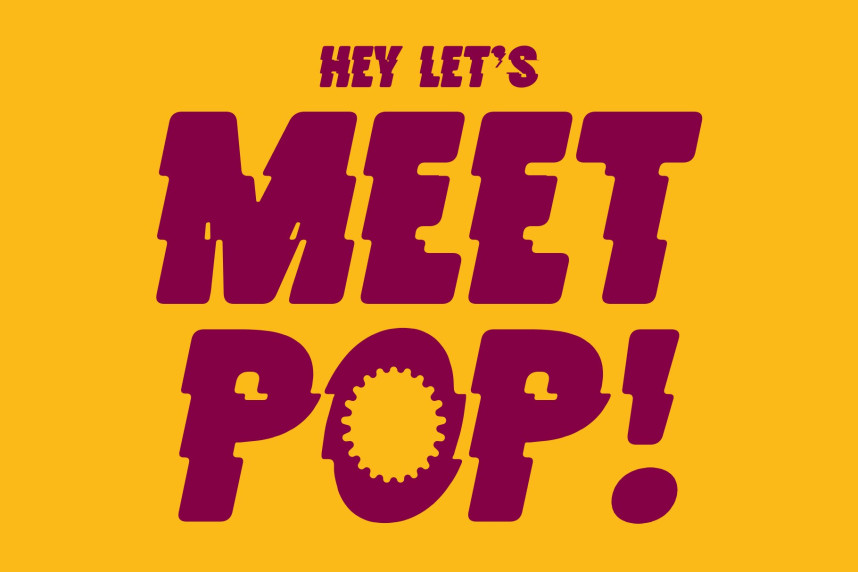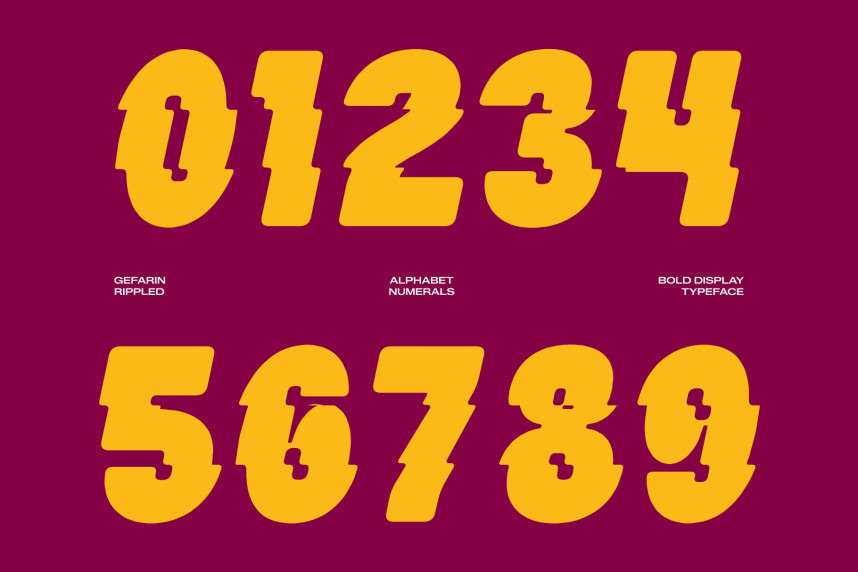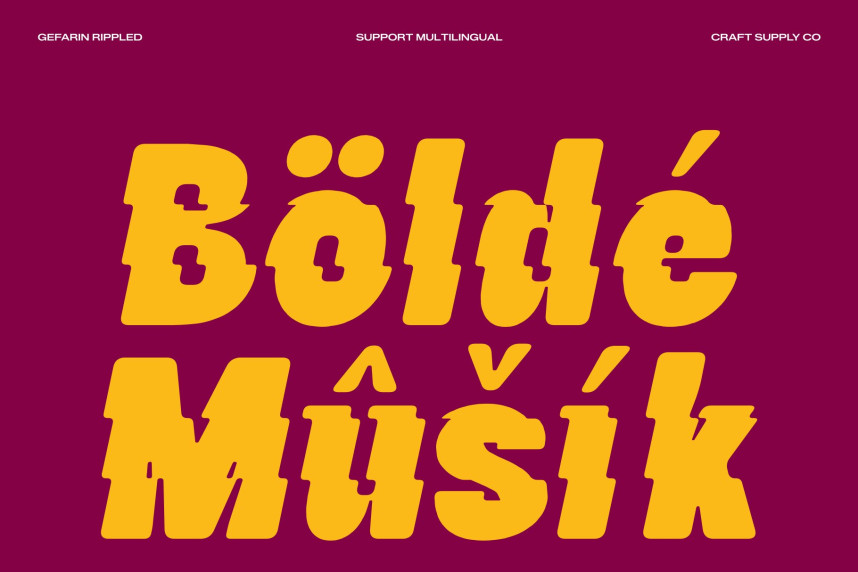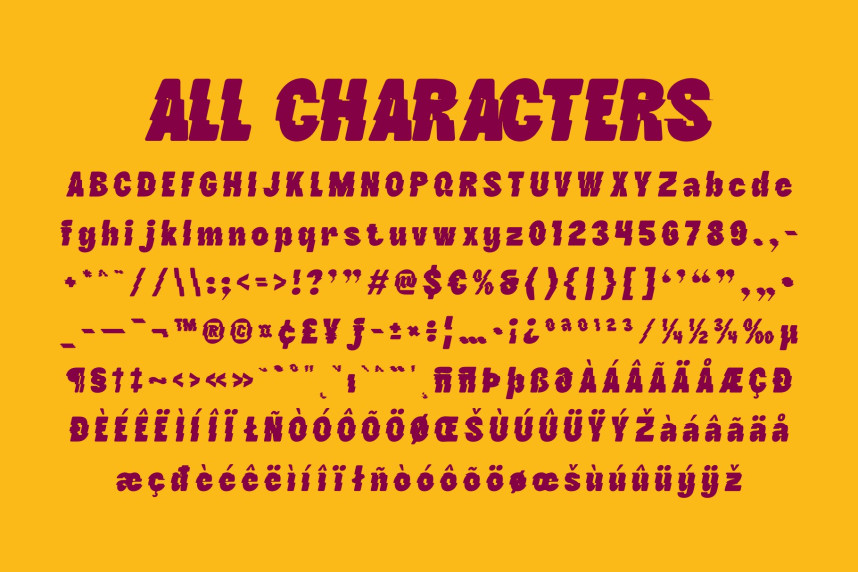
Gefarin Rippled Font
Gefarin Rippled Font – Bold Sans Serif Font with Funky Liquid Character
Bold and Funky Sans Serif Design
This is a bold sans serif font that perfectly combines professional structure with playful, funky personality. Its strong letterforms create an immediate visual impact, while its expressive character adds a sense of creativity and individuality. The font strikes a unique balance between confidence and charm, allowing it to stand out without sacrificing clarity or sophistication.